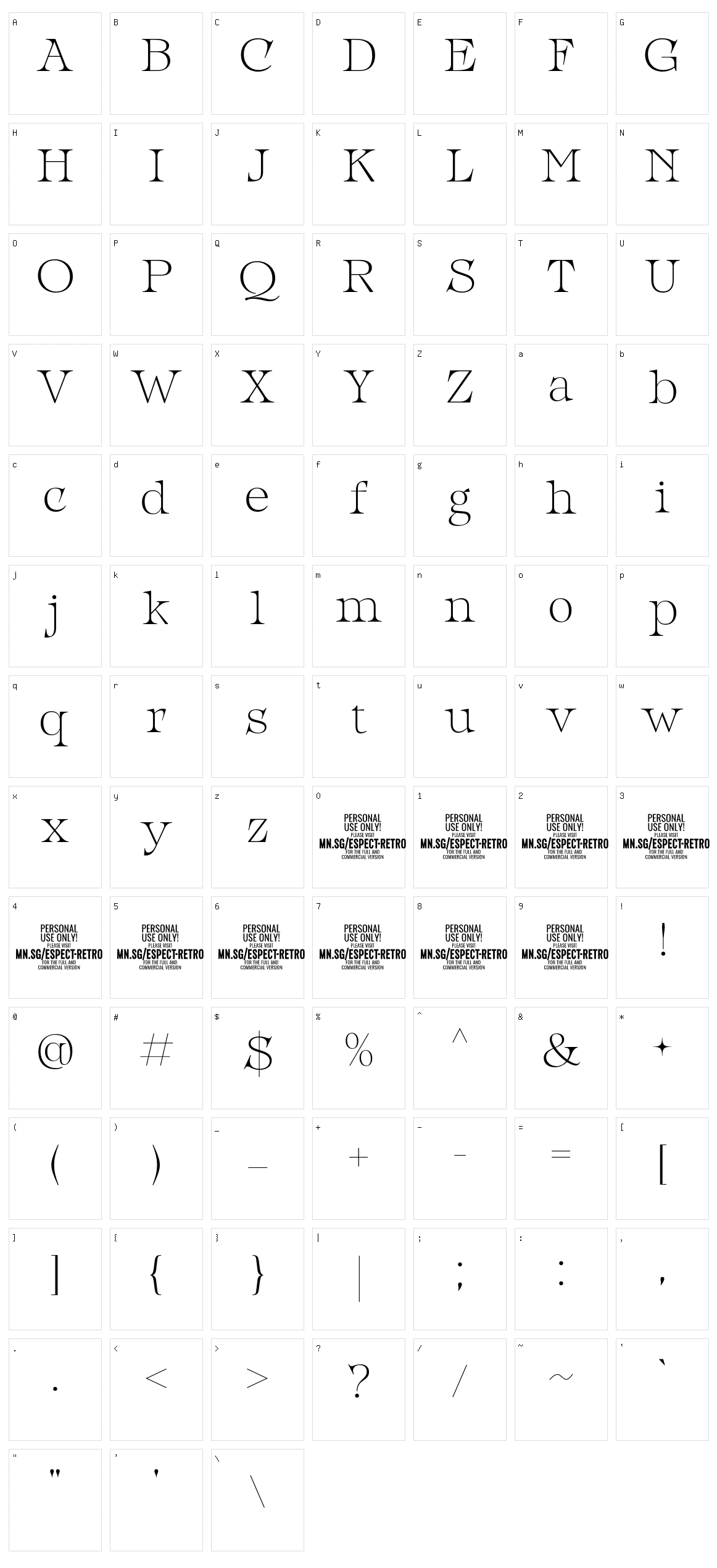
Espect Retro beckons to the discerning eye with its harmonious blend of the modern and the classic. Its wide, yet hairline-thin structure gracefully extends into elongated serifs, giving it a poised and elegant stance. The extended x-height isn't just noticeable; it's a celebration of design that evokes charm and cuteness in every curve and counter. Its lightness radiates a fashion-style sophistication, making it a go-to for classy projects. Yet, amidst its contemporary flair, there's a nostalgic nod to traditional typography, a tribute that adds depth to its character. Truly, Espect Retro is created to be a designer's trusted companion, meticulously crafted to perfection, and tailored to elevate professional designs with its captivating allure.
The font is built with advanced OpenType functionality and has a guaranteed top-notch quality, containing stylistic and contextual alternates, ligatures, and more features; all to give you full control and customizability. It has extensive lingual support, covering all Latin-based languages, from Northern Europe to South Africa, from America to South-East Asia. It contains all characters and symbols you'll ever need, including all punctuation and numbers.
Behind Espect Retro's appeal lies the craftsmanship of Mans Greback. With every typeface he introduces, Greback demonstrates a keen understanding of the delicate balance between form and function. Espect Retro is yet another testament to his commitment to excellence, ensuring designers have the tools they need to bring their visions to life.